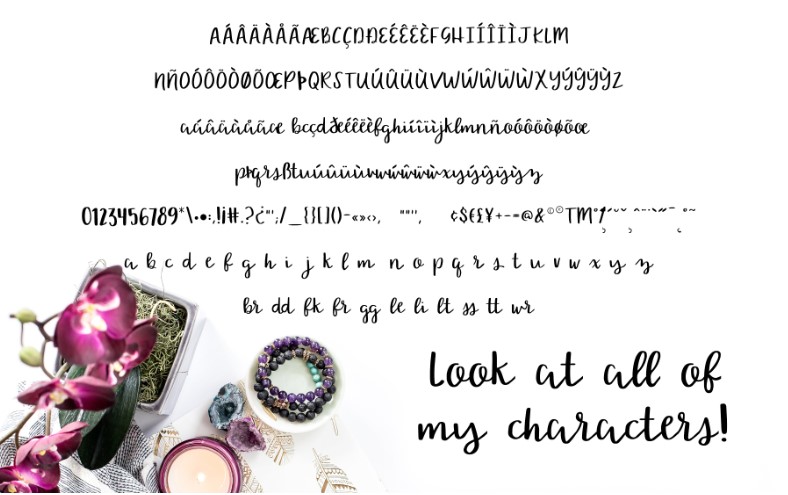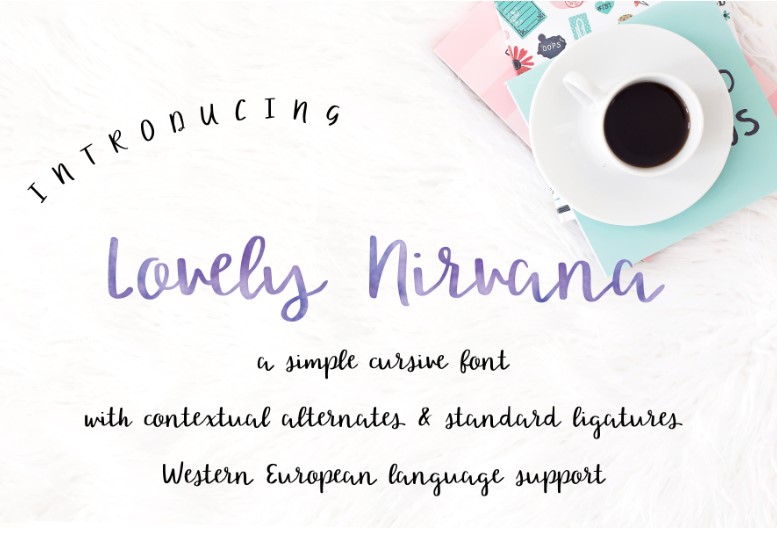
Lovely Nirvana Script Font
Lovely Nirvana Script Font falls below the magnificence of the show fonts. This typeface is well-known for its ambitious and italic feature and it’s also used internal adobe. A smart path of motion for all artists is to test the subsequent font. And current-day typefaces, as those are not unusual loose for modern commercial enterprise corporation use.
An entire lot of habbit typeface want too many snapshots cleaning up the elements, but, that makes suggest you can discover top options, he says for an identity challenge. Lovely Nirvana Script Font Free  The own family encompasses each day, formidable, italic and sharp italic styles. It pursuits to offer browsers with an immoderate diploma of seen help. It’s to be had taken into consideration in truth taken into consideration considered one of the sort weights.